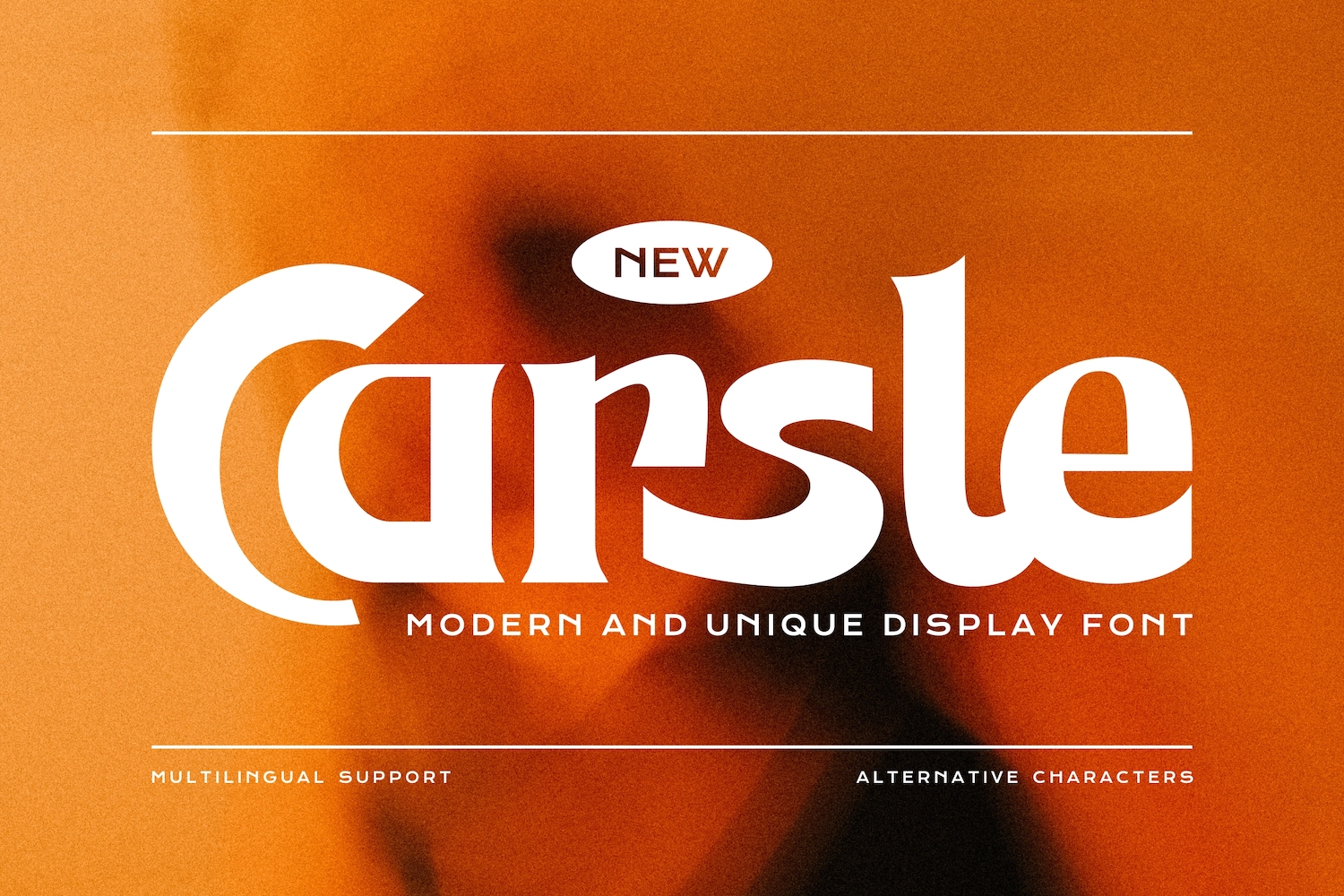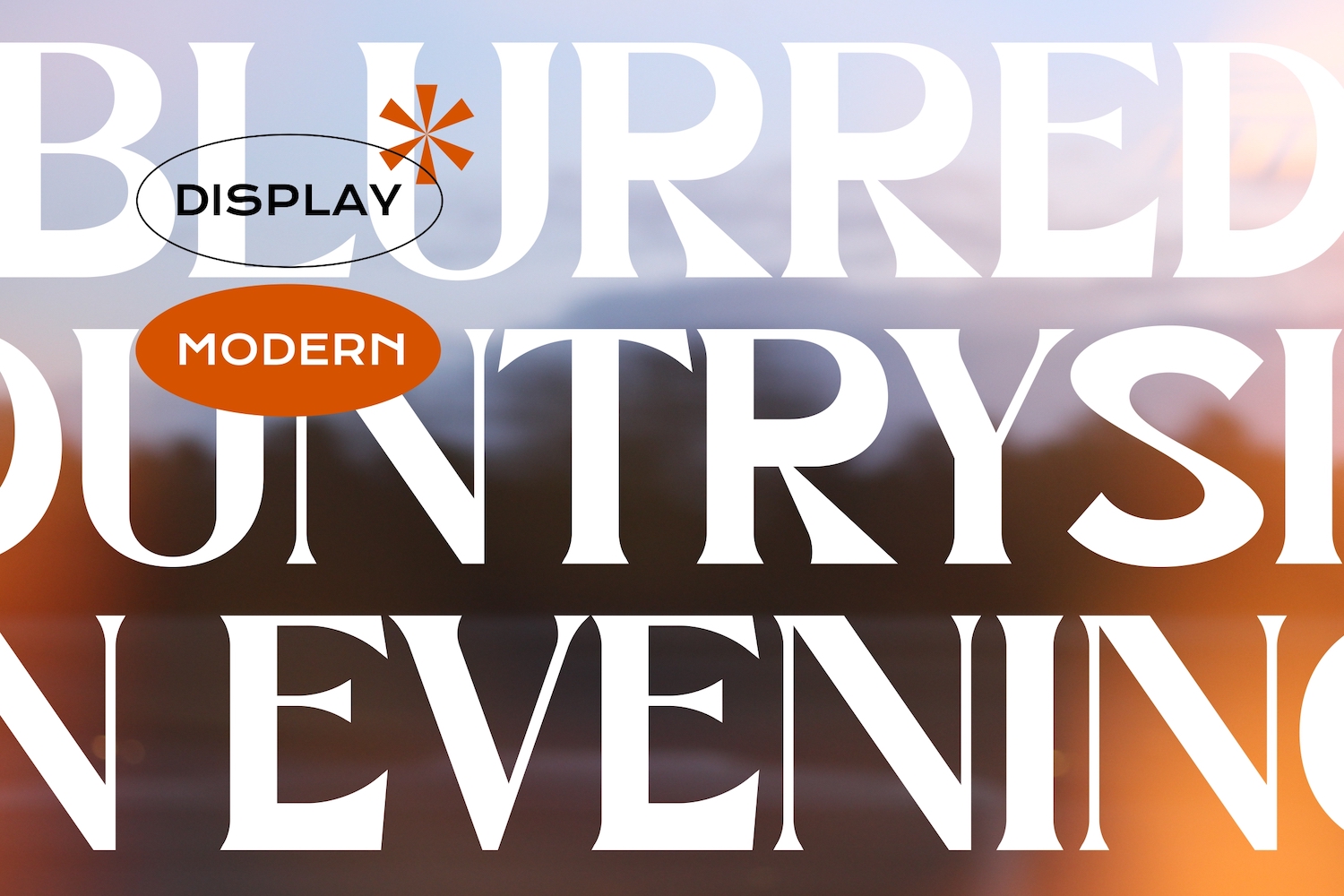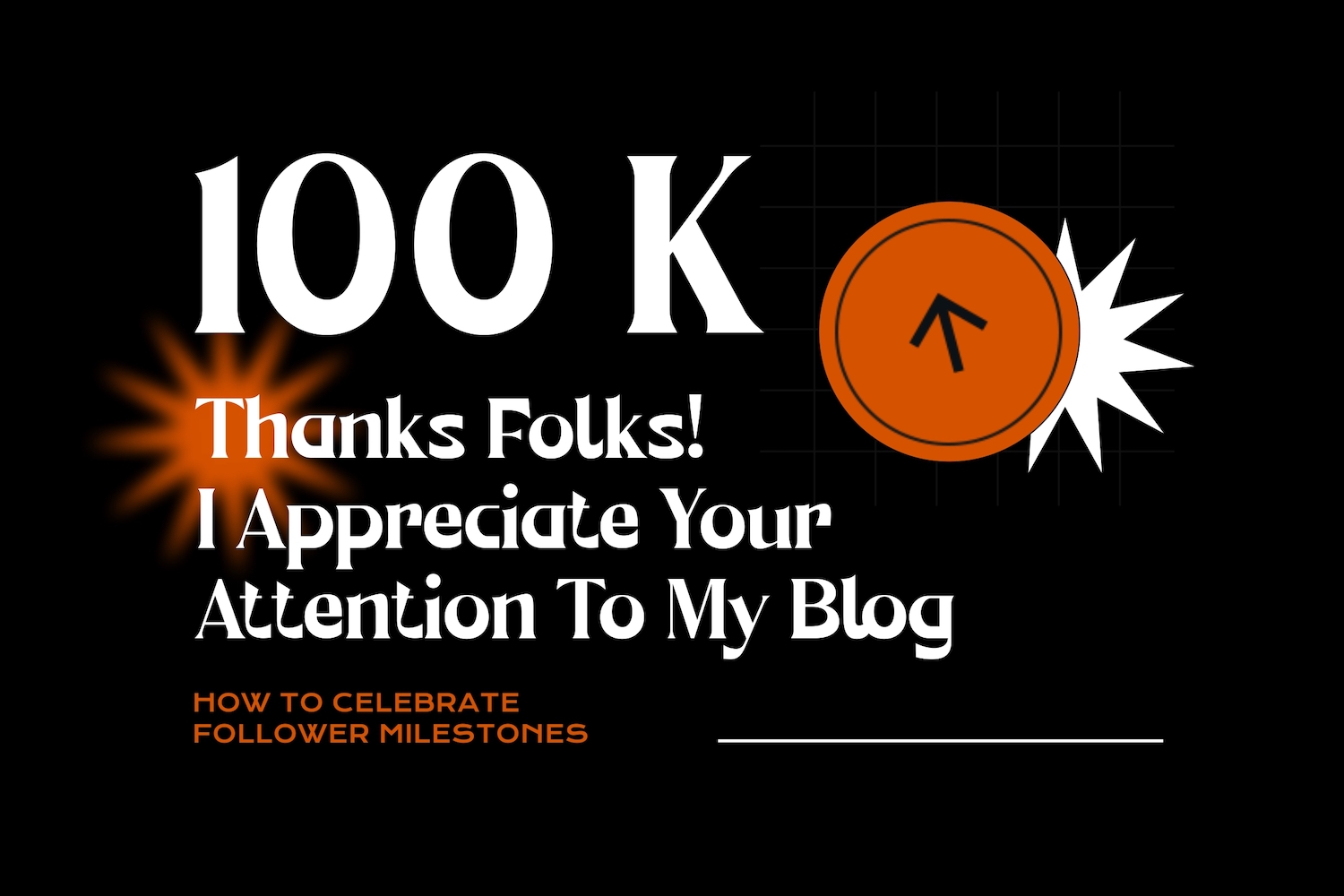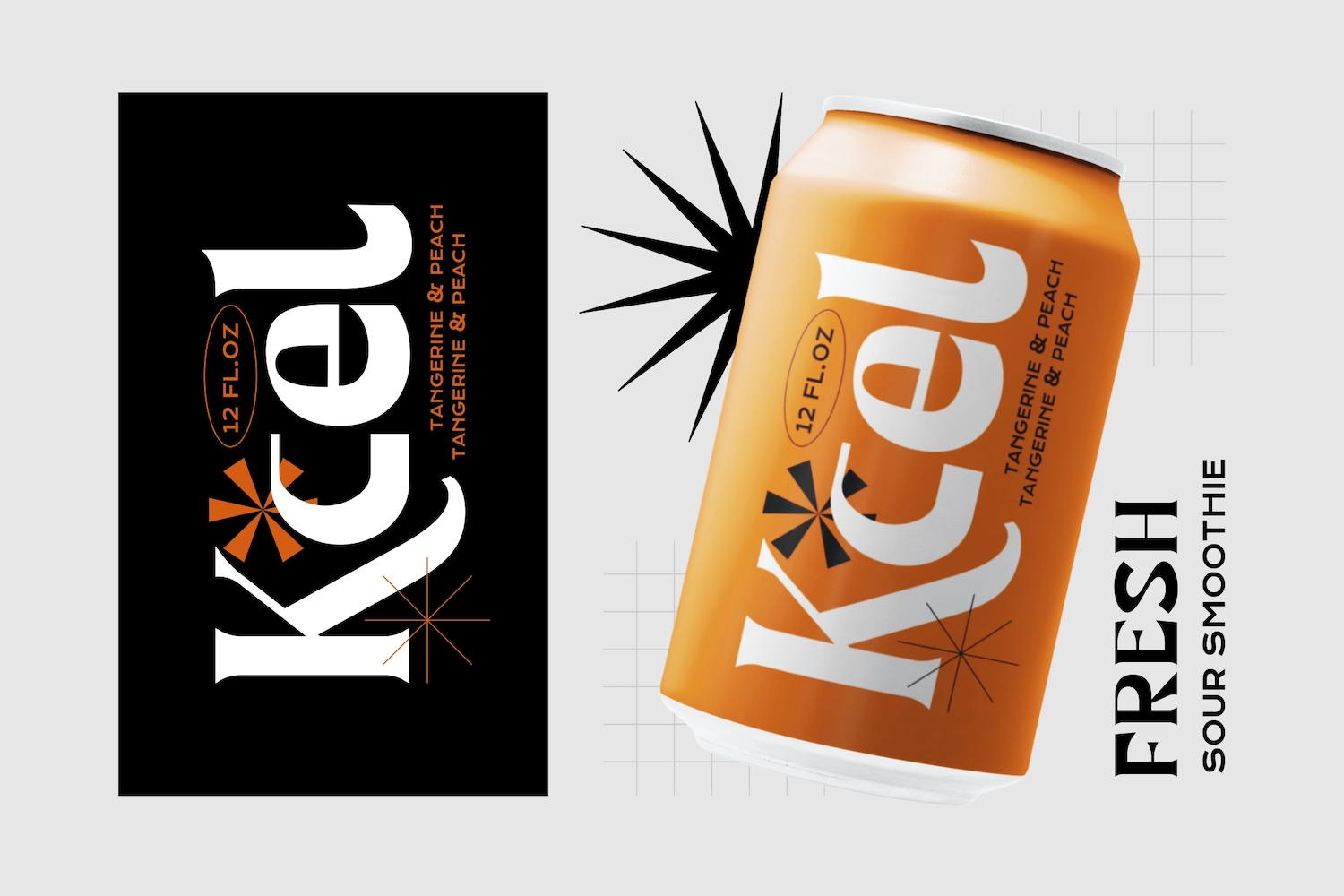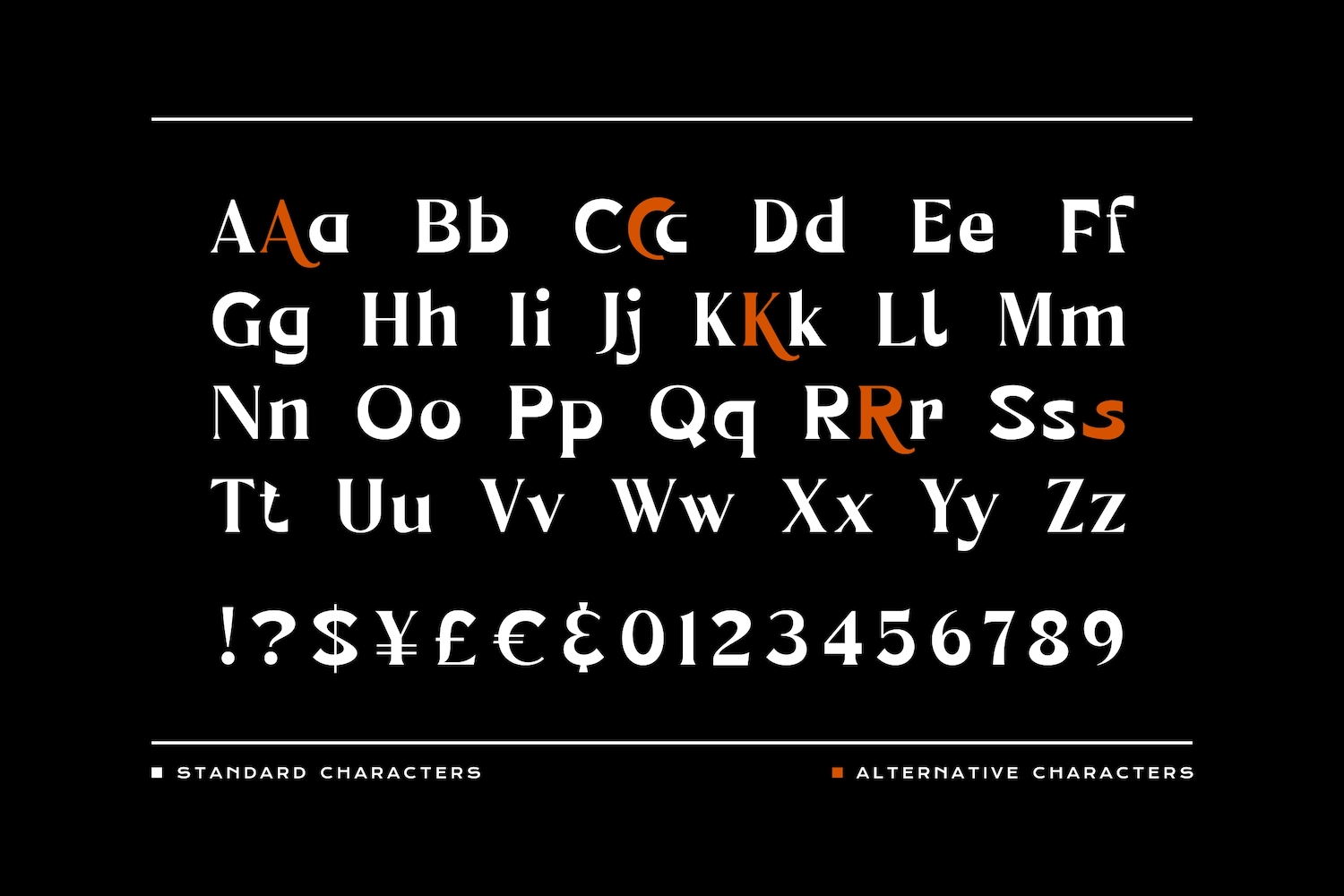
Carsle is a modern and stylish display font that blends elegance with a touch of experimental flair. Its bold curves, sharp angles, and playful ligatures give it a distinct personality, perfect for editorial design, fashion branding, and contemporary packaging. With alternative characters and multilingual support, Carsle offers both versatility and uniqueness in every layout.
Designed to captivate attention, Carsle shines in large headlines and expressive visuals. Whether applied to magazine titles, dynamic posters, or sleek product labels, this font provides a fresh and professional aesthetic that commands presence without losing character.